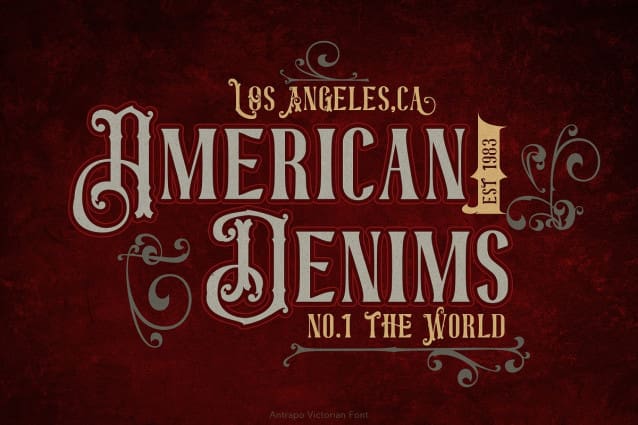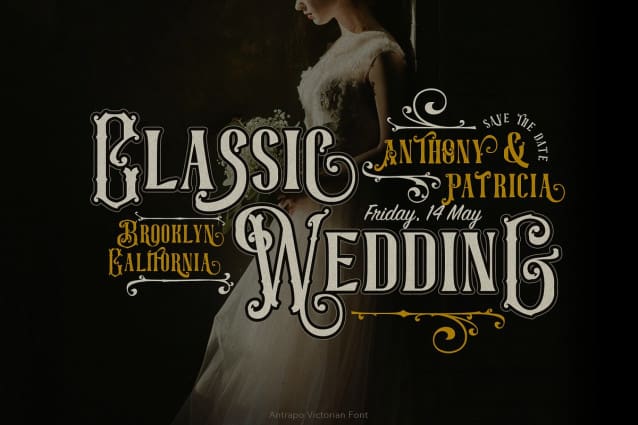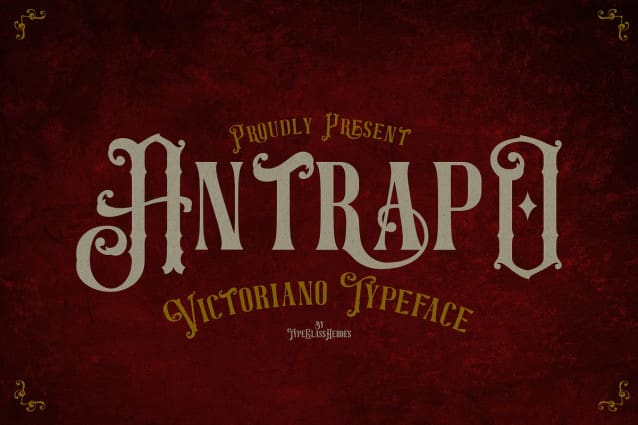
Antrapo Victorian Font
Antrapo Victorian Font is an all-caps font with an elegant touch with a classic feel inspired by the typography from the 19th century, old fancy lettering, vintage illustration, and victorian calligraphy.
This font is very perfect for many display purposes in your product design if you want to a vintage and classic style, elegant and luxury. Such as book covers, product labels, logos badges, drink bottles, tattoo shop, coffee shops, fashion products, wedding invitation, etc.